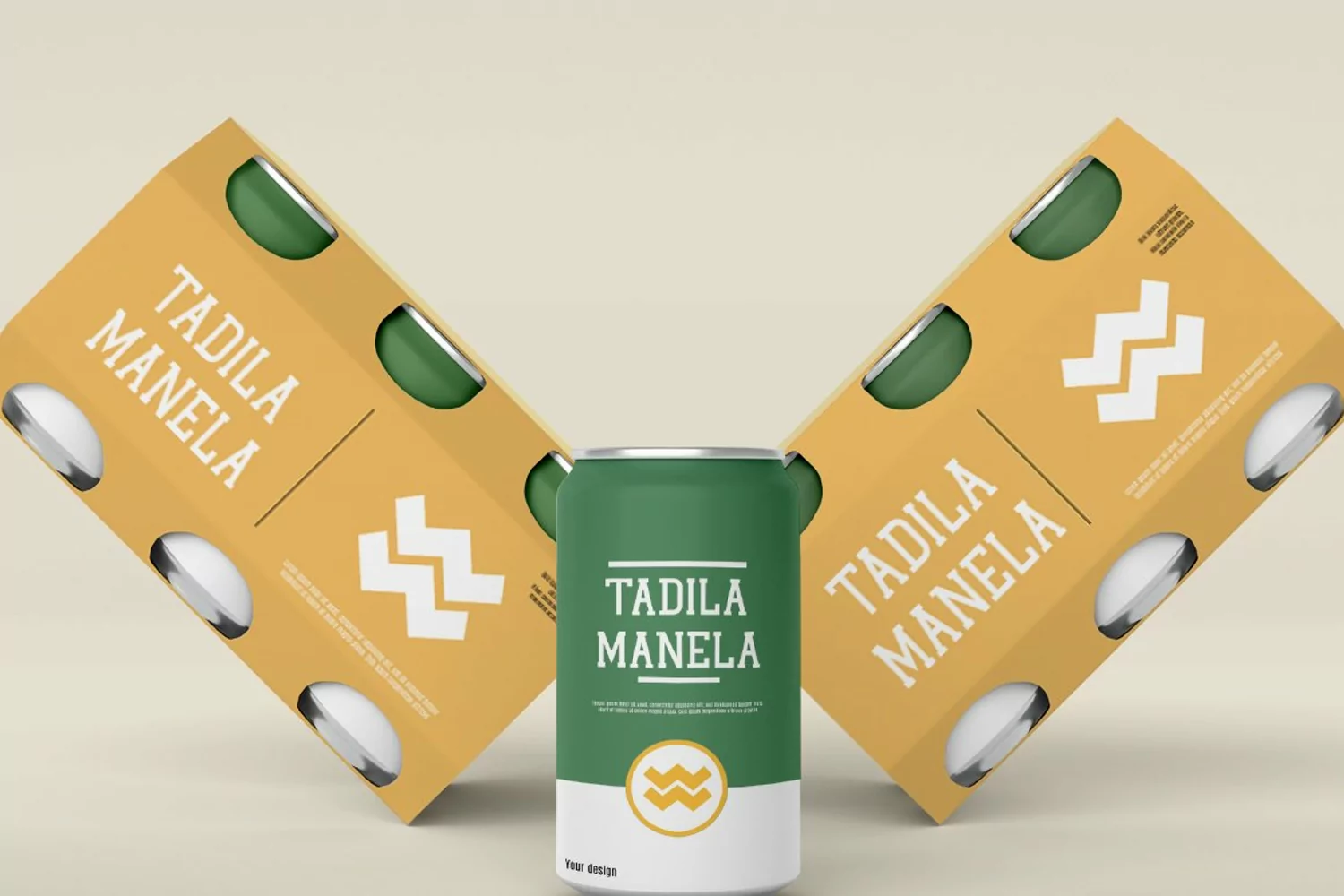
Brank is a vintage reto font It has both modern and retro look - clear, modern and fun. Helps to create layout design in 60s or 70s design projects.
- Unique letterforms